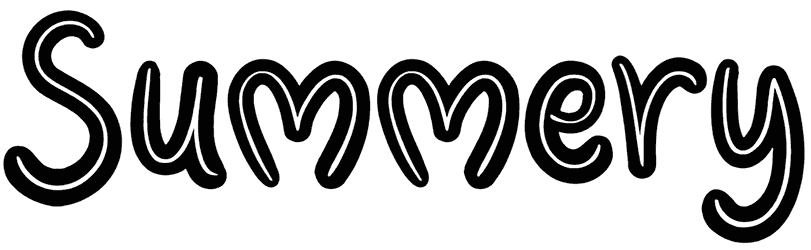
Summery Font
The intersection of the digital world of neon fonts with the human emotion of script fonts is where Summery was born. This inline font has a textured and glossy look that offers a combination of uppercase and lowercase letters.
The excellent contrast, along with the natural hand-made mode, makes this font look very good in your detailed technological or advertising designs. For this reason, it creates a path to success for clothing design, logos, and albums.
Summery is a display font with summer theme. It is fun and playful font to be!